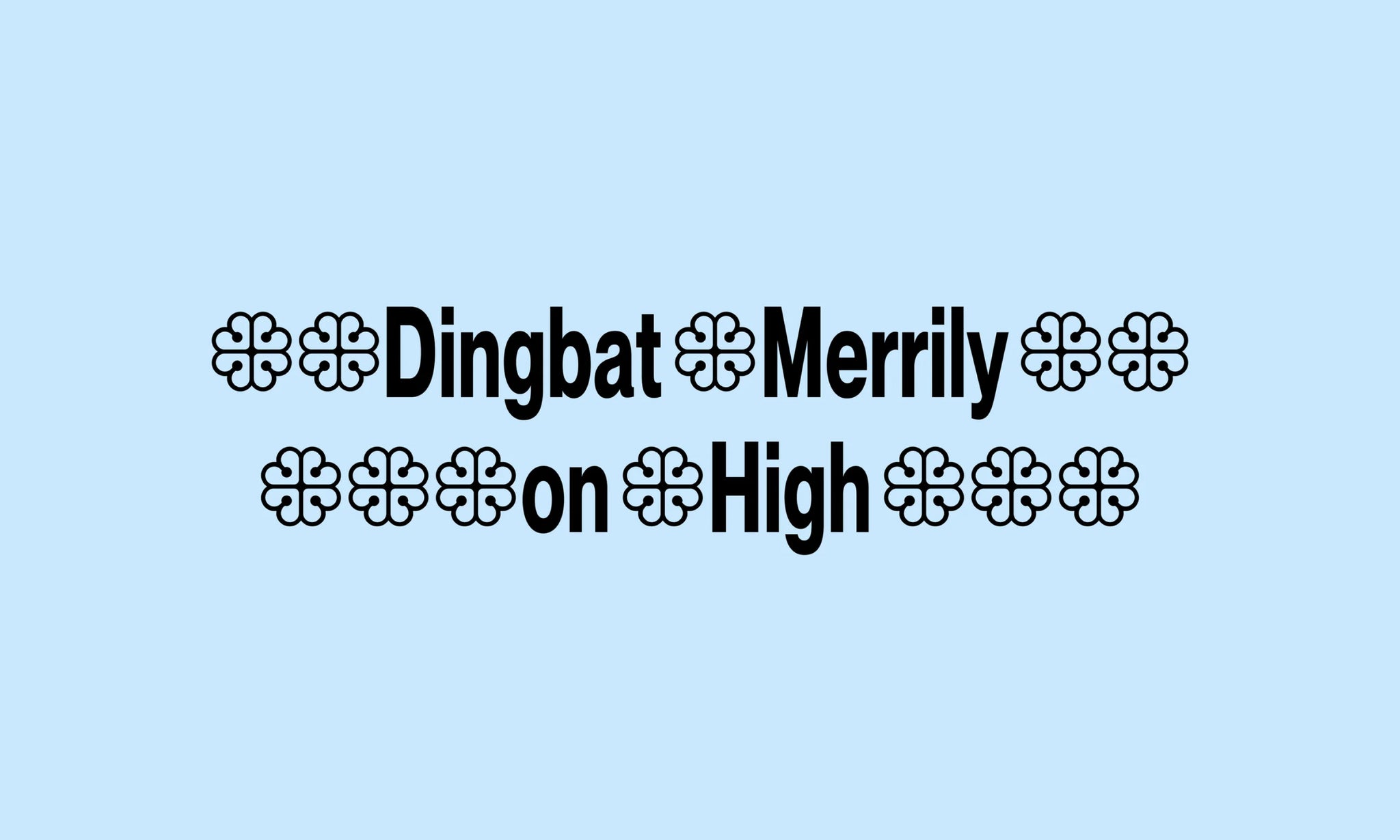
Perhaps you’ve overly-analytical of each new big-brand wordmark that comes out, or obsessed with the curves of a well-designed, 2-storey g, or enamored with the balance of a good kerning job, or always on the lookout for their next favorite typeface… Maybe you’re not at all, but your friend, partner, or family member is and you have no clue what to get them for Christmas.
After all, with the holidays fast approaching, now’s the time to find a present that speaks to your font-loving needs. Well, let us help with that.
Pangram Playground Keychain
Small but mighty, the Pangram Playground Keychain is the perfect stocking stuffer for any big-time type lover. Made from a ultra-satisfyingly-textured zinc alloy, the keychain is embossed with the Pangram Playground logomark (set in PP Playground for extra consistency), which is reversed on the flipside. It’s slick without being showy. A true class act. Buy it here
Enzo Mari Flip Calendar
Few designers are as timeless as Enzo Mari. Few products are as timeless as one’s he’s designed. And few calendars are as coveted as the Enzo Mari Flip Calendar. This functional masterpiece is a celebration of clean typography and simplicity. Designed in the 1960s, it remains as relevant today as ever, blending practicality with a modernist aesthetic. A true classic and designer staple. Buy it here
Dice Set
For creatives who like very nice things, this dice set is an absolute must. Unlike ordinary dice (boring, SNORE!), these polished, 304 stainless steel dice are engraved with numerals courtesy of Pangram Pangram’s fan-favourite release of 2024, PP Playground. Plus, you get a complimentary copy of PP Playground with every purchase. This is a collector’s edition of only 20, so move quickly! Buy it here
Previously Known As Tote Bag
Alright, so there are loads of tote bags out there, but I promise you (from personal experience), none are as useful and sick as this one. For starters, it’s massive. Secondly, it’s hardy, having been made from durable cotton, emblazoned with OT Neue Montreal Squeezed no less. It’ll be an instant favourite. Buy it here
Midori Notebooks
For those who, like us, write a lot, we can confidently say (from years of trial and error), that the Midori notebooks are THE notebook. Known for their quality paper and binding, Midori notebooks are the Platonic ideal of notebooks. Lay-flat, simple and stunning. SAY. NO. MORE! Buy it here
PP32 Specimen Book
The PP32 Specimen Book celebrates the entire Pangram typeface catalogue in comprehensive detail. Whilst the physical copy is sold out (but keep your eyes peeled in 2025), the digital version is equally as inspiration. Buy it here
TYPEONE Magazine Subscription
Typography is constantly evolving, and staying up to date on the latest trends, innovations, and stories – all while acknowledging type design’s history – is essential for a serious type nerd. That’s why a subscription to TYPEONE Magazine is the ideal, year-long present for any font fan. Each intricately designed issue dives deep into the world of typography through different contexts, featuring interviews with top designers, showcases of groundbreaking work, and thought-provoking articles. Buy a gift that keeps on giving! Buy it here
Workwear Socks
Socks are a classic Christmas present, something people generally love or hate. For the font fan who likes to wear their passion from head to toe, these Workwear Socks are the ideal choice. Type-led and crafted for comfort. They’re great stocking fillers (or great stockings for that matter!). Buy it here
Original Movie Posters from Posteritati
You might have to be quick on the pulse to find your dream poster, but if a poster is what you’re looking for, Posteritati is the way to go. After all, typography in the wild doesn’t get much better than vintage movie posters. And Posteritati is a treasure trove. Featuring rare and original posters from classic and cult films, this collection is a testament to cinematic and creative history. Buy it here
Font Starter Pack
When in doubt, give the gift of fonts. The Font Starter Pack from Pangram is a curated collection of versatile typefaces designed to suit a wide range of projects. It’s perfect for designers looking to expand their library or for anyone just starting their creative careers. An easy win for any font fan. Buy it here